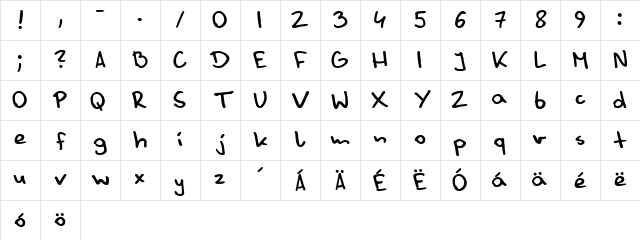
Danny Regular
Foundry: Artcity
Designer: Artcity
Design Context for Danny
Danny is a composed and adaptable typeface that performs quietly and consistently across a wide range of design contexts.
Pro Tip: Use Danny in both headline and body roles to test its range before committing to a single application.